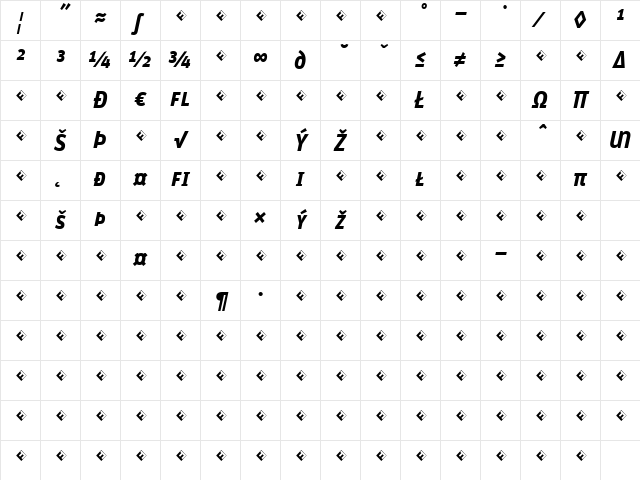
Unit-BoldSCItalicExpert Regular
Foundry: Erik Spiekermann, Christian Schwartz; published by FontShop International for the FontFont Library
Designer: Erik Spiekermann, Christian Schwartz
Design Context for Unit-BoldSCItalicExpert
Unit-BoldSCItalicExpert is a composed and adaptable typeface that performs quietly and consistently across a wide range of design contexts. The slanted form adds forward momentum and visual energy. Its bold stroke weight gives it real presence on the page.
Pro Tip: Use Unit-BoldSCItalicExpert for emphasis, pull quotes, and subheadings where its slanted energy can add rhythm to the layout.
Who designed the Unit-BoldSCItalicExpert Regular font?
This font was published by Erik Spiekermann, Christian Schwartz; published by FontShop International for the FontFont Library. Check the technical specs section for copyright and designer details.